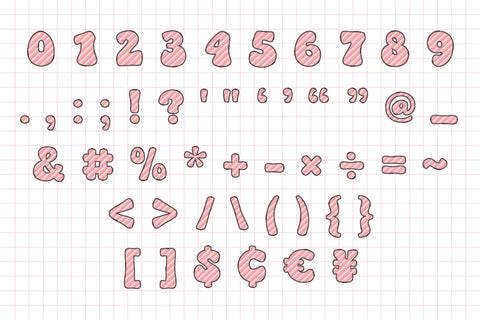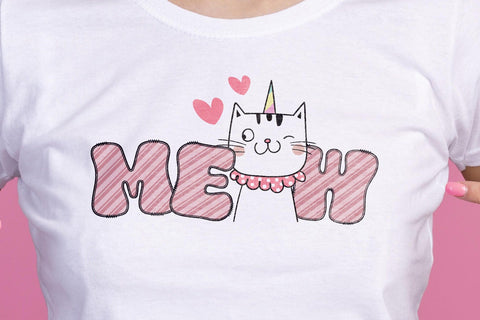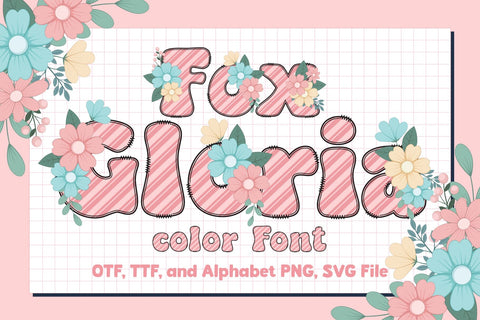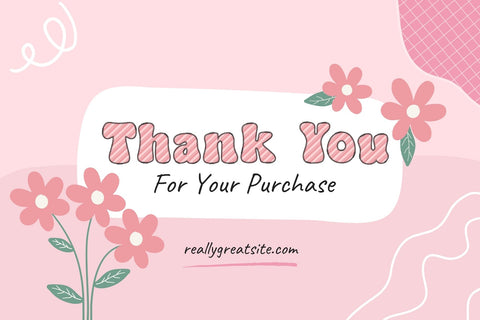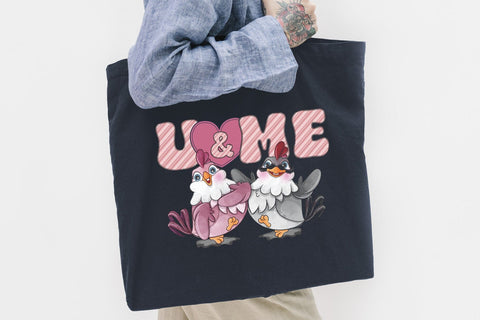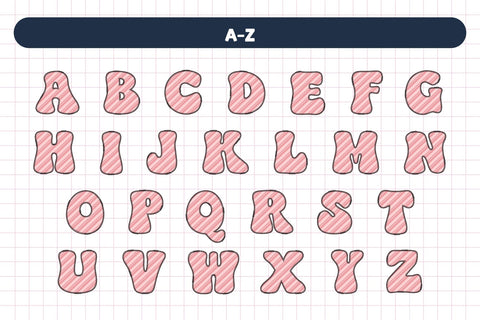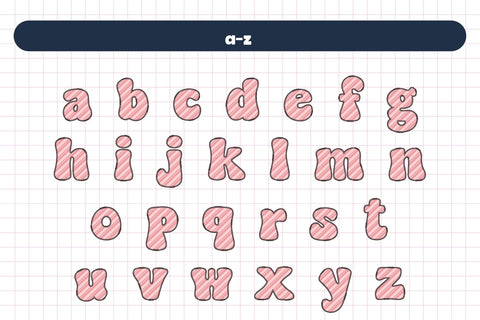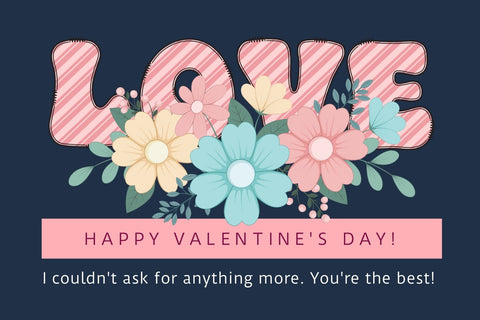
Fox Gloria Color Fonts
Fox Gloria is a cute and fun color font. This font is your go-to for crafting cute greeting cards that express affection and warmth. Fall in love with its authentic feel and use it to create gorgeous invitations, beautiful stationary art, eye-catching social media posts, and cute greeting cards.